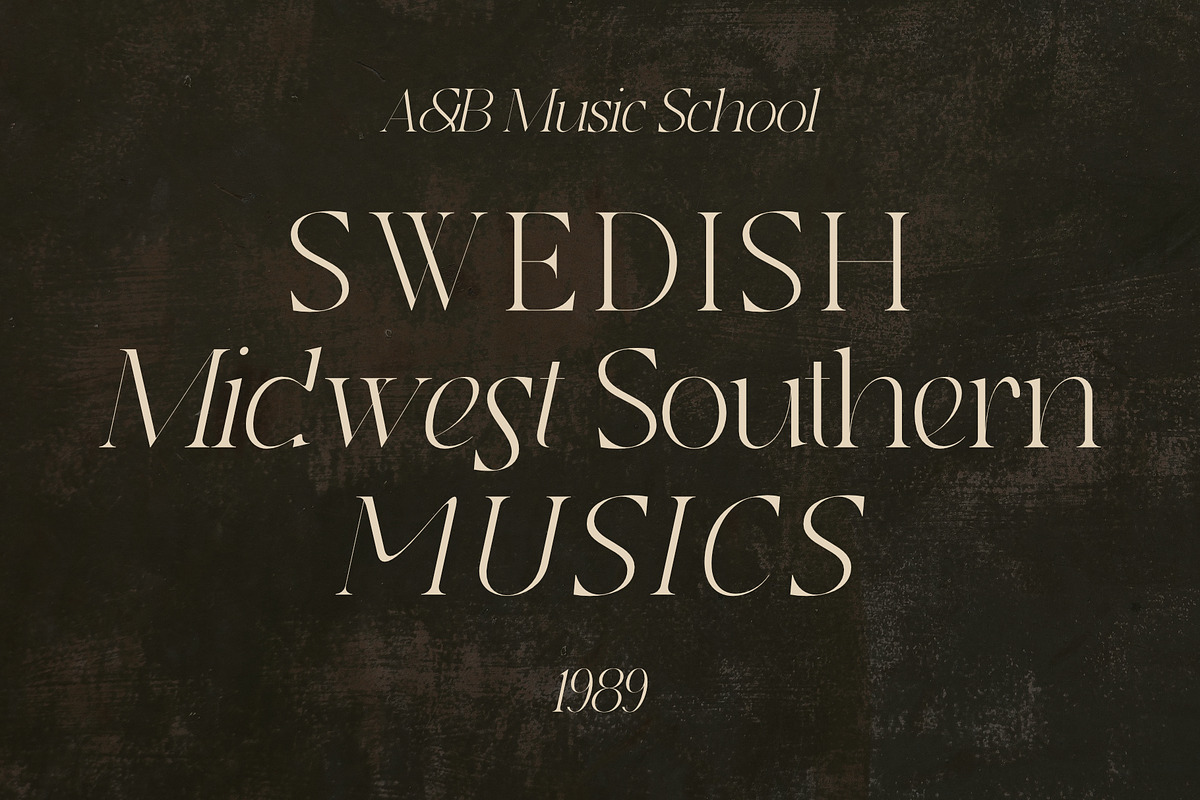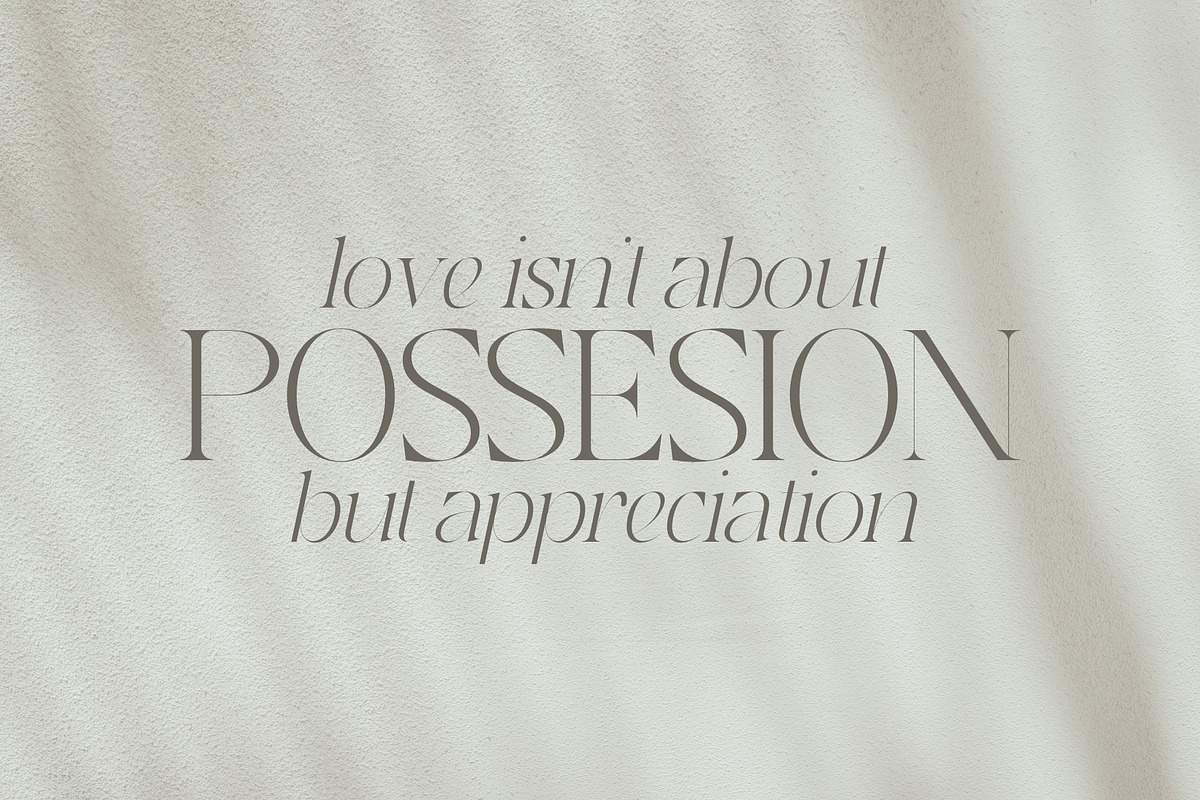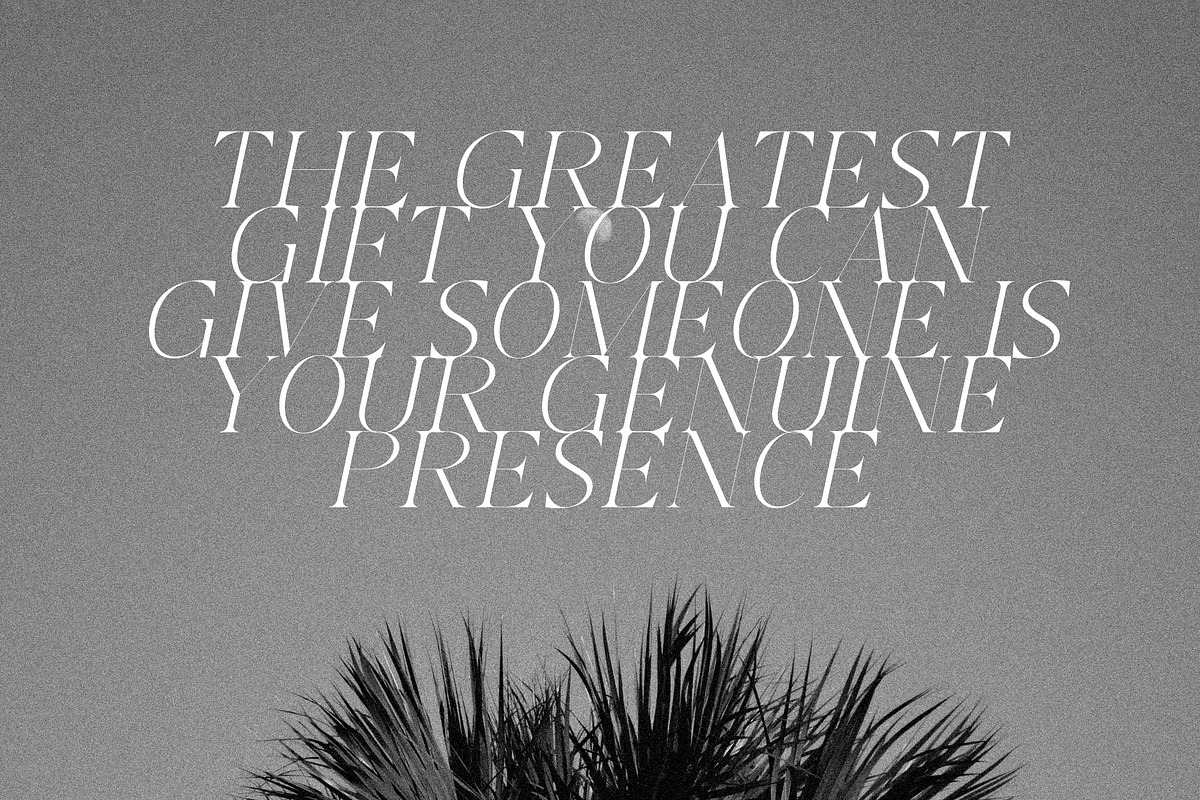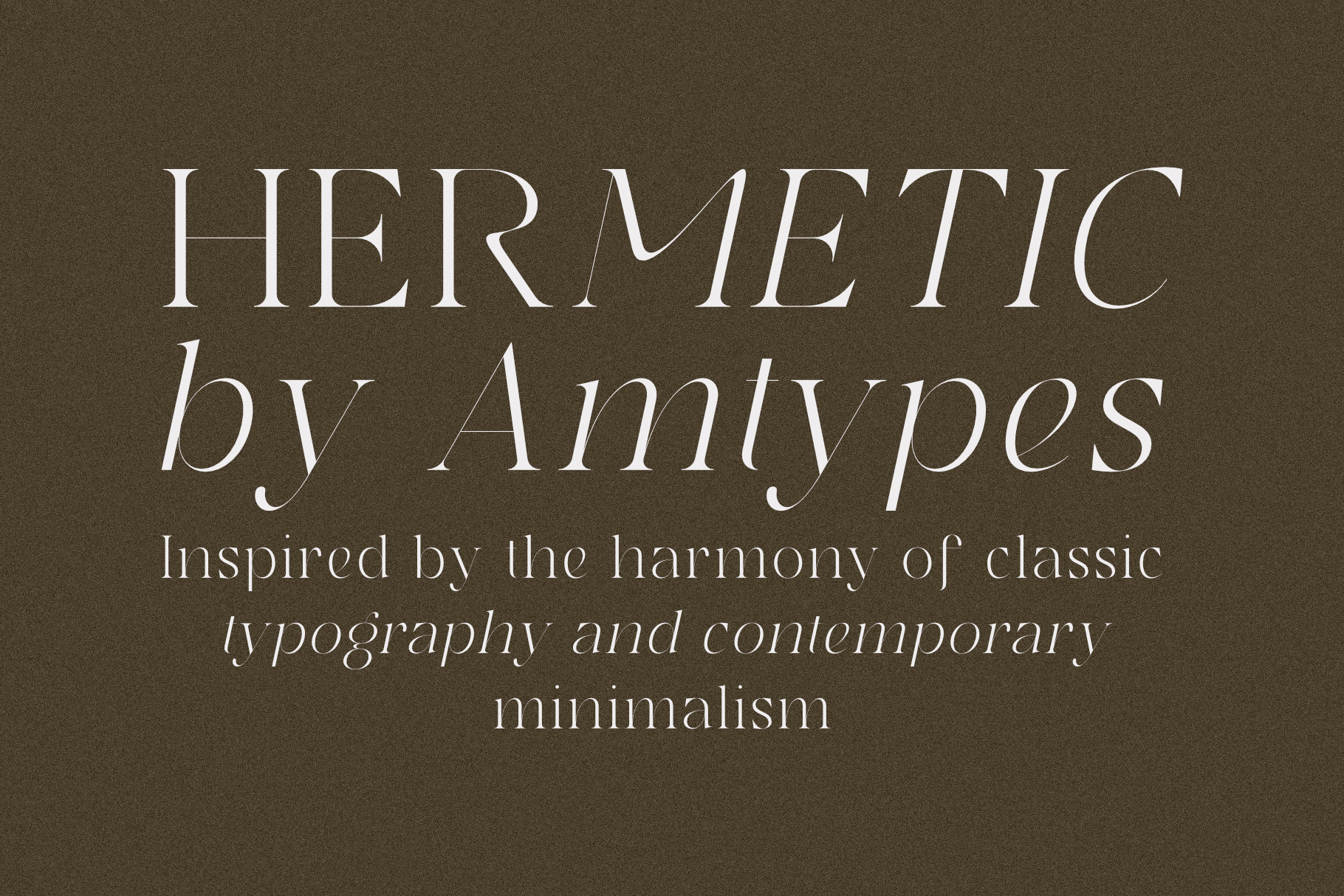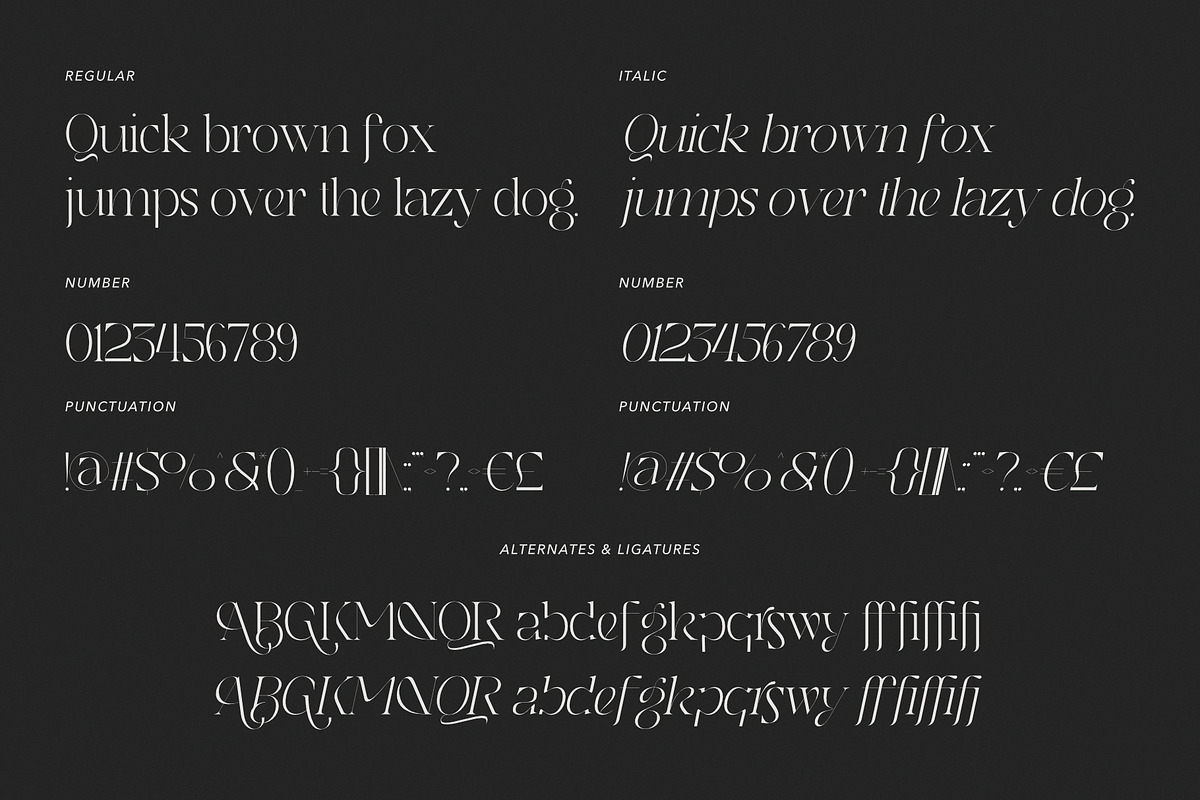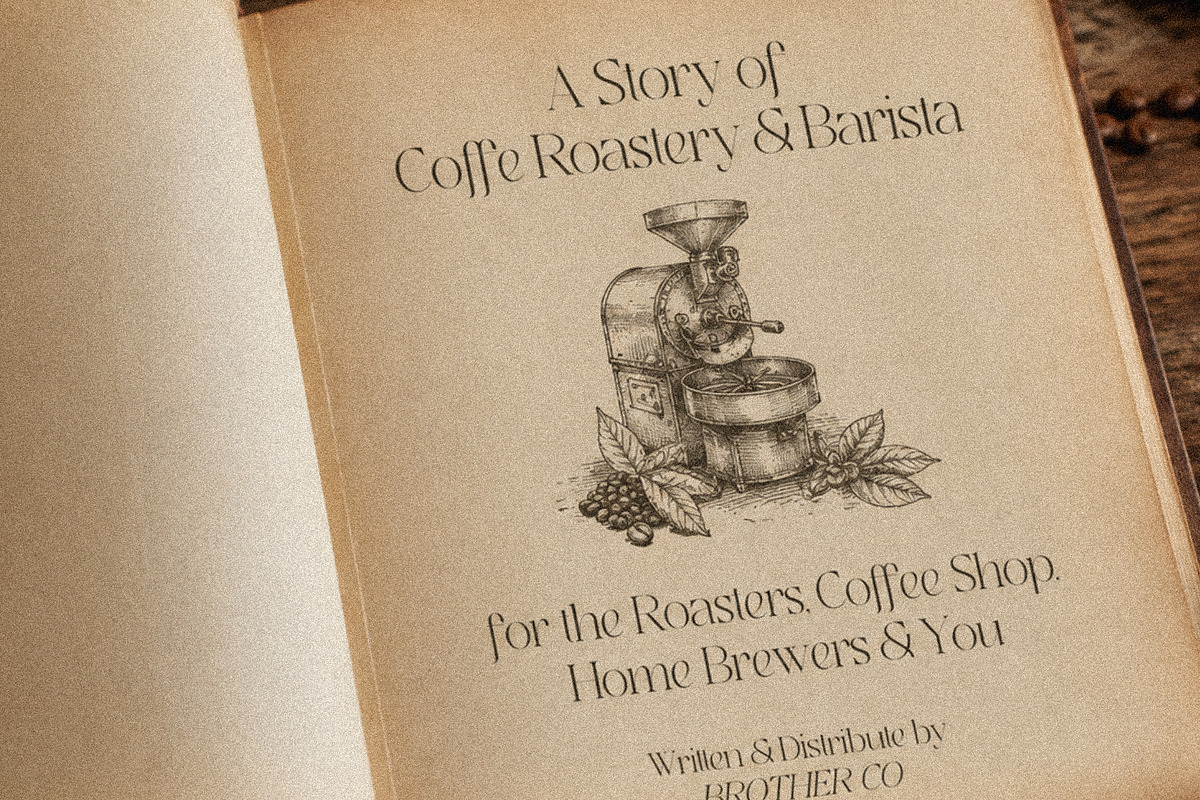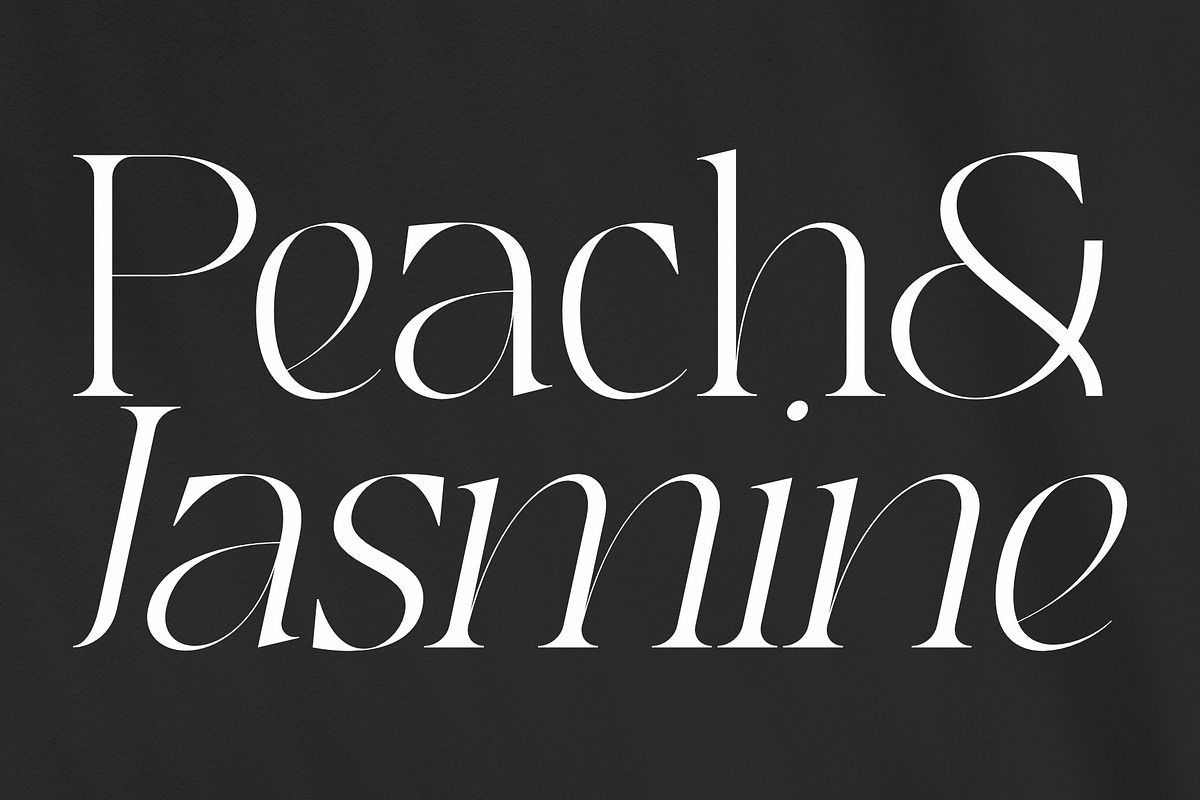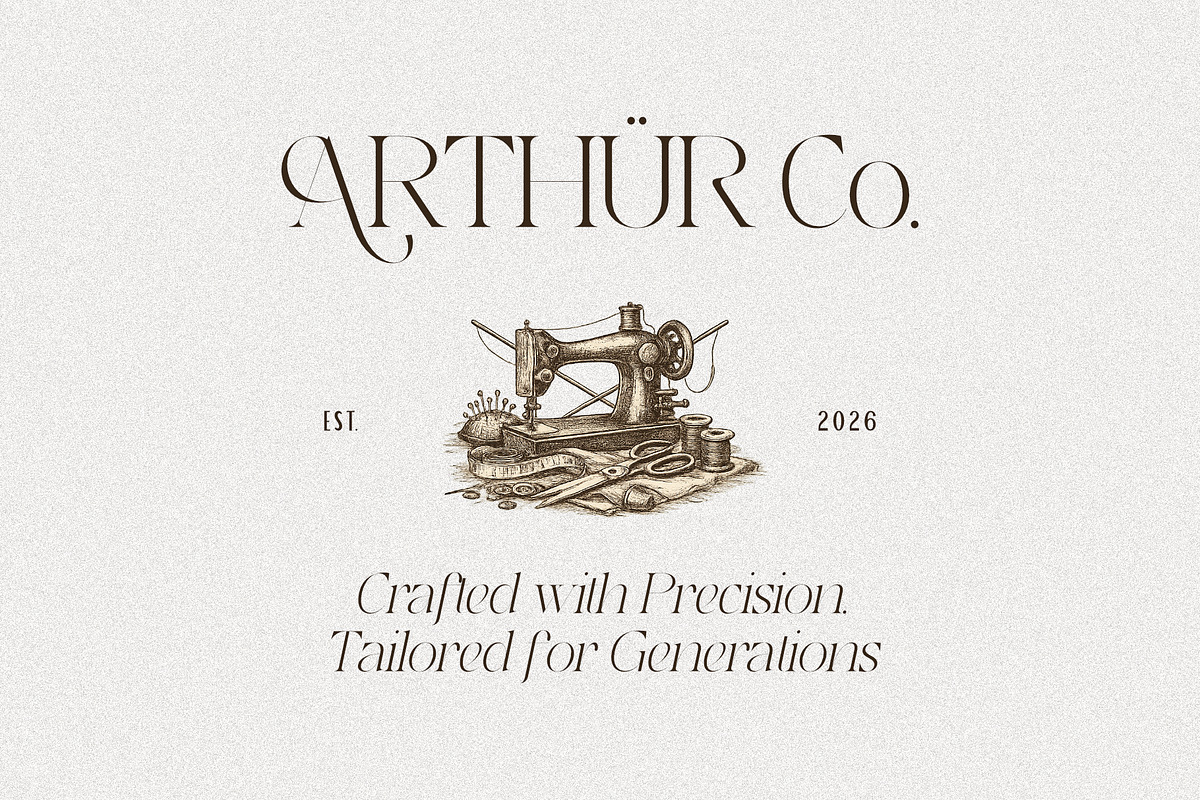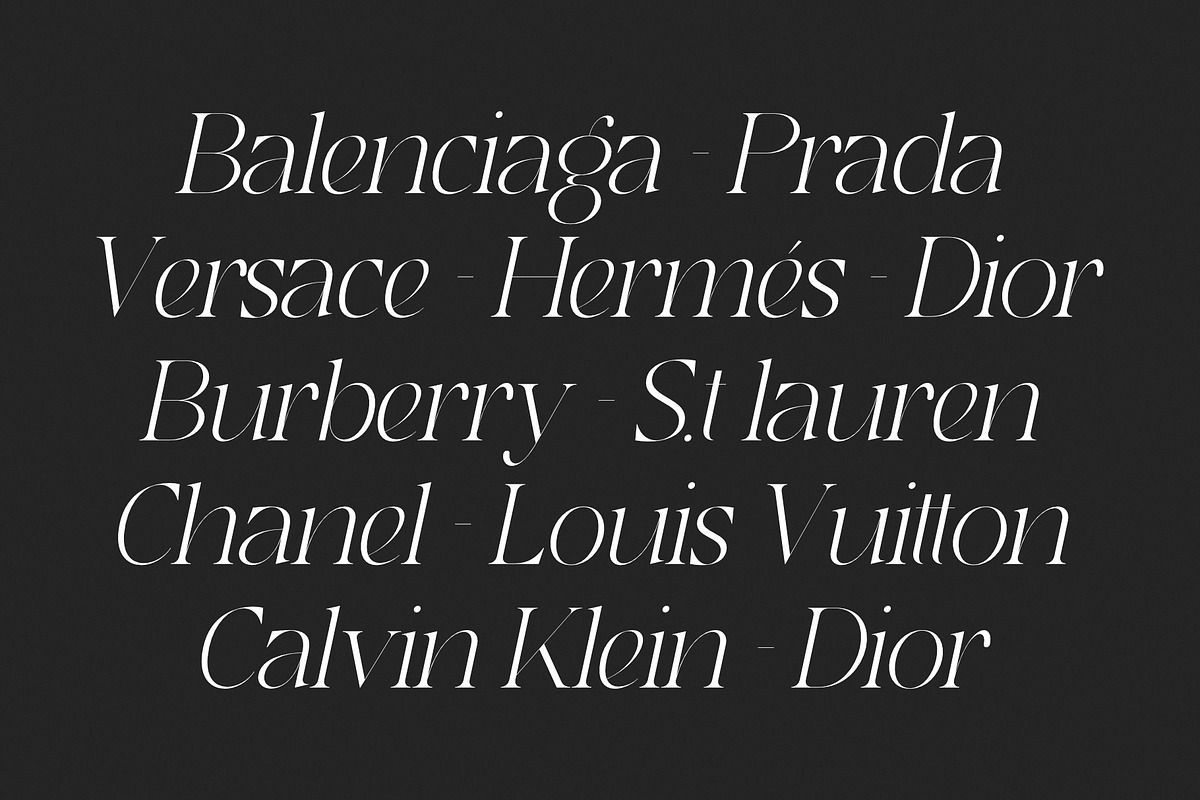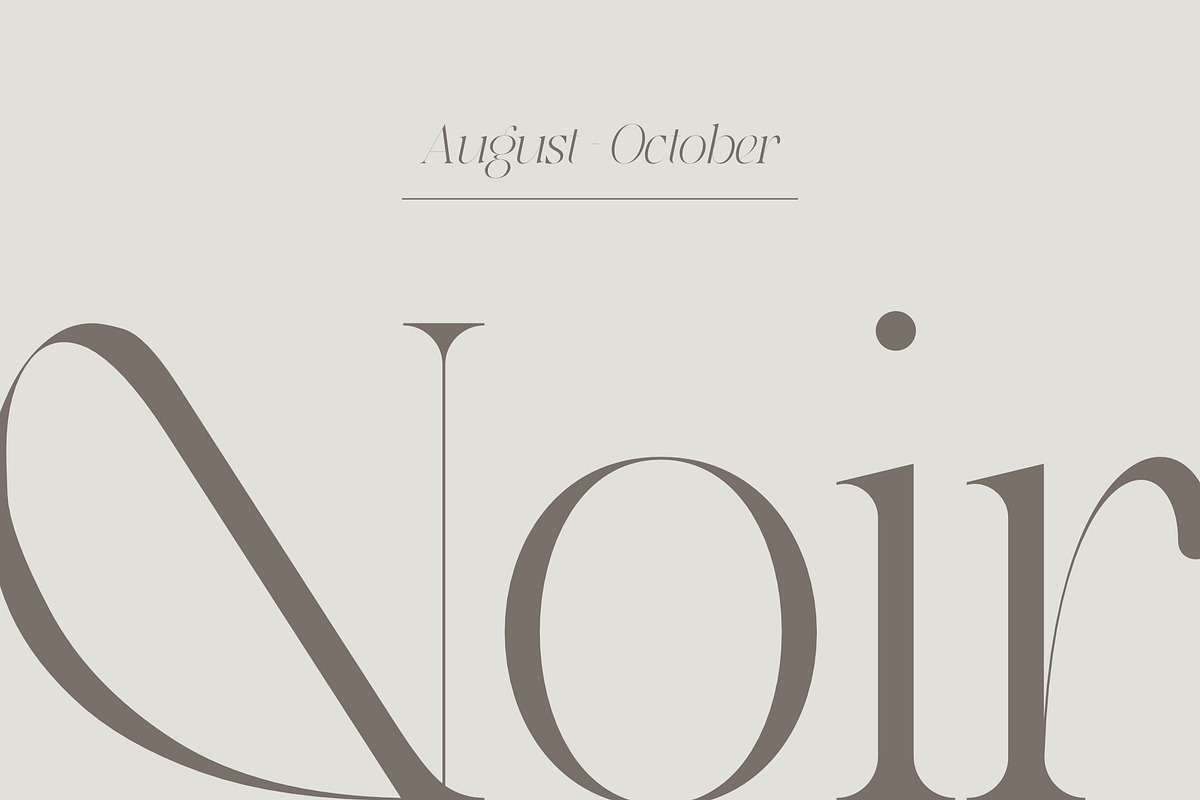
Hermetic - Duo Font
Hermetic is a refined serif typeface that blends timeless elegance with contemporary sophistication. Inspired by classic typography and modern editorial aesthetics, it features delicate high-contrast strokes, graceful curves, and beautifully balanced proportions that create a luxurious visual presence.
Whether you're designing for a premium fashion brand, an elegant logo, magazine layouts, cosmetic packaging, wedding stationery, or luxury marketing materials, Hermetic delivers a distinctive and sophisticated look.
The accompanying italic style introduces fluid movement and expressive elegance, making it perfect for combining dramatic headlines with refined body typography.
Hermetic was carefully designed for creatives who value beauty, minimalism, and timeless craftsmanship.
Standard Ligatures
Elegant Italic Style
Hermetic is the perfect choice for designers looking to create elegant, luxurious, and memorable typography with a modern editorial touch.